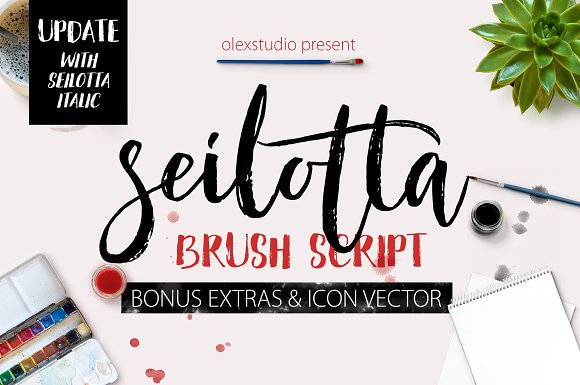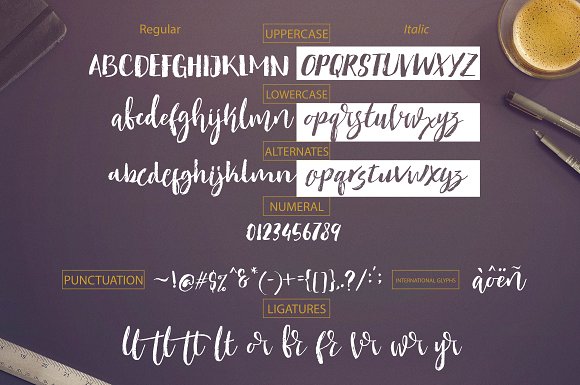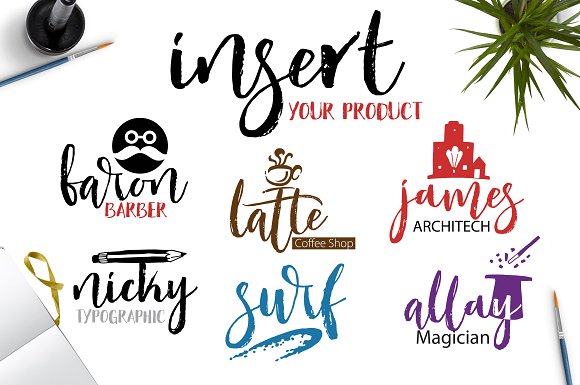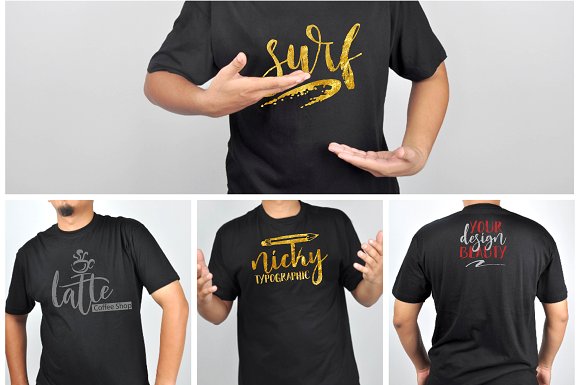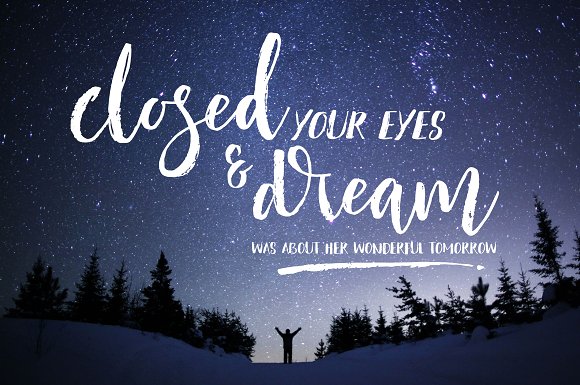
HomeScript FontsSeilotta Font Script Fonts Seilotta Font FacebookXPinterestWhatsApp Seilotta Font Poster 2 Seilotta Font Poster 3 Seilotta Font Poster 4 Seilotta Font Poster 5 Seilotta Font Poster 6 Seilotta Font Poster 7 About Seilotta Font Seilotta is a gorgeous brush script that comes packed with loads of extras. DOWNLOAD NOW People also explored Okinawa Sunset Font Twisterella Font Calmy Font Madam Frilleug Font Reggina Font Amore Dreaming Font Father Font Melinda Valentine Font Airlove Font 310 0 TagsSeilotta Font Previous articleSamuella FontNext articleSouthside Font LEAVE A REPLY Cancel reply Comment: Please enter your comment! Name:* Please enter your name here Email:* You have entered an incorrect email address! Please enter your email address here Website: Save my name, email, and website in this browser for the next time I comment. Personal Use Free Homelands Personal Use Free Read more about this font Zero Hour Personal Use Free Read more about this font Ancient Script Personal Use Free Read more about this font Cokobi Personal Use Free Read more about this font BLOG To increase your work productivity, choose the most readable fonts. In today's fast-paced work environment, where digital communication and information consumption are integral to our daily routines, the choice of fonts can significantly impact... Elegant Wedding Invitation Fonts – Handwritten & Script Fonts Best Fonts for T-Shirt Design – Top 2025 Picks Using Fonts in Digital Marketing: Tips to Strengthen Your Brand Identity